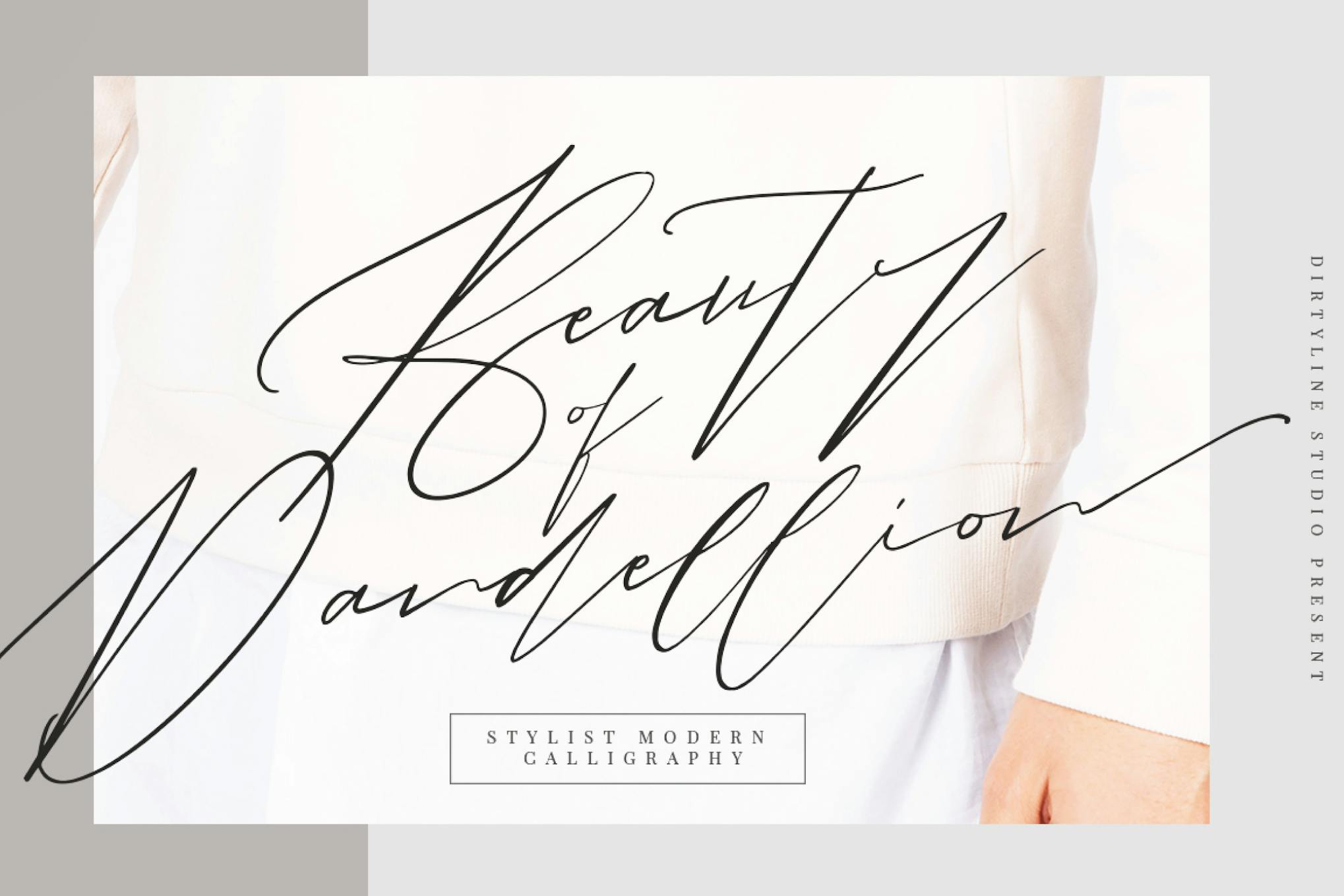
Beauty of Dandelion Script Wedding Font
The Beauty of Dandelion Script Wedding Font excels in natural design applications including whimsical wedding invitations, natural bridal branding, organic ceremony logos, botanical product packaging, nature-inspired business cards, organic portfolios, botanical greeting cards, natural social media graphics, whimsical event signage, and organic marketing materials. Its natural script style makes it perfect for projects requiring organic elegance that communicates natural beauty and establishes botanical brand positioning with audiences seeking natural wedding experiences and organic sophistication.
What makes the Beauty of Dandelion Script Wedding Font genuinely exciting is its exceptional ability to capture the natural beauty and whimsical charm of botanical weddings through organically crafted letterforms. The font features flowing, nature-inspired strokes with whimsical flourishes and organic proportions that create a distinctly natural appearance. Each character displays remarkable attention to botanical detail with organic curves, natural connections, and whimsical spacing that give text a beautifully natural, hand-lettered quality. The font's natural character and organic rhythm create an atmosphere of whimsical elegance while maintaining botanical sophistication and wedding authenticity.
The Beauty of Dandelion Script Wedding Font family typically includes regular weight with extensive character coverage, featuring uppercase and lowercase letters, numerals, punctuation marks, and international characters. The typeface often incorporates stylistic alternates, contextual ligatures, and natural swashes that enhance its signature botanical appeal. These additional elements provide designers with creative flexibility to customize text appearance and achieve more natural-looking organic handwriting that reflects the font's whimsical and natural character.
This natural signature font distinguishes itself through its remarkable balance of whimsical charm and sophisticated elegance. Unlike artificial or synthetic fonts that lack natural appeal, Beauty of Dandelion Script Wedding Font embraces the power of organic design to create natural connections with botanical wedding audiences. The font's whimsical character makes it essential for natural wedding planners, organic brands, and botanical celebration businesses where creating natural wedding experiences and whimsical memories is fundamental to success in organic wedding markets.
The Beauty of Dandelion Script Wedding Font Free Download offers designers an exceptional opportunity to incorporate natural elegance into their botanical wedding projects. From organic wedding venues to whimsical celebration brands, this font delivers the natural signature aesthetic that resonates with couples seeking whimsical and naturally sophisticated wedding experiences. Its botanical appeal ensures your designs communicate natural beauty while the signature styling adds distinctive personality that reflects whimsical romance and natural sophistication in any application requiring organic typography solutions.
Beauty of Dandelion Script stylist- a new fresh & modern script with a calligraphy style, a dancing baseline! So beautiful on invitation like greeting cards, branding materials, business cards, quotes, posters, and more! Beauty of Dandelion come with more Alternative and more Ligature. The alternative characters were divided into several Open Type features such as Stylistic Sets, Stylistic Alternates and Ligature. The Open Type features can be accessed by using Open Type savvy programs such as Adobe Illustrator, Adobe InDesign, Adobe Photoshop Corel Draw X version, And Microsoft Word. And this Font has given PUA unicode (specially coded fonts). so that all the alternate characters can easily be accessed in full by a craftsman or designer Features : Initial Alternates Terminal Alternates Standard ligatures Unique ligatures Basic Latin A-Z and a-z Numbers International Symbols include PUA Encode